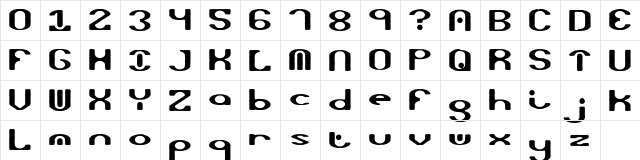
Opiated (BRK) Regular
Design Context for Opiated (BRK) Typeface
Opiated (BRK) is a composed and adaptable typeface that performs quietly and consistently across a wide range of design contexts.